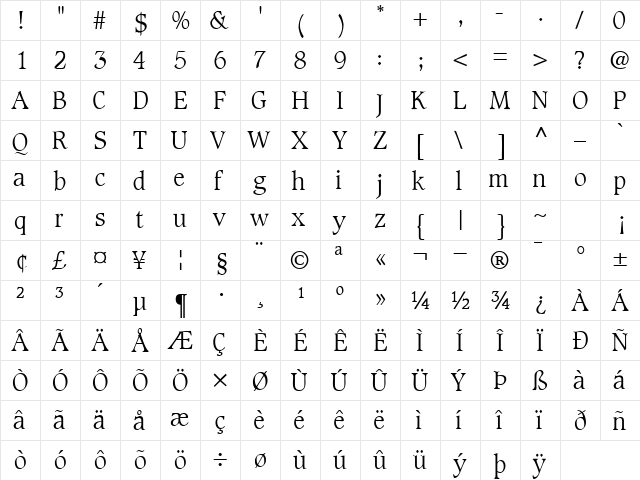
GrammateusLightSSK Regular
Design Context for GrammateusLightSSK Typeface
GrammateusLightSSK is a composed and adaptable typeface that performs quietly and consistently across a wide range of design contexts. The delicate stroke weight brings airiness and refinement to layouts.